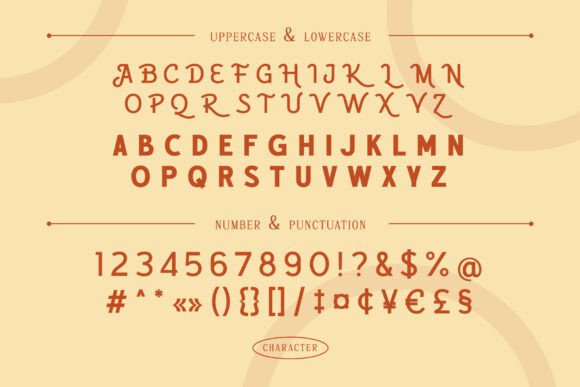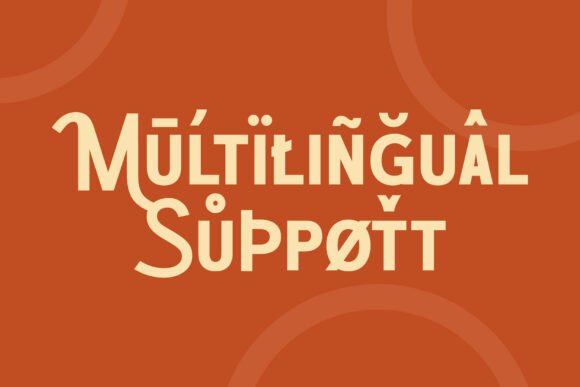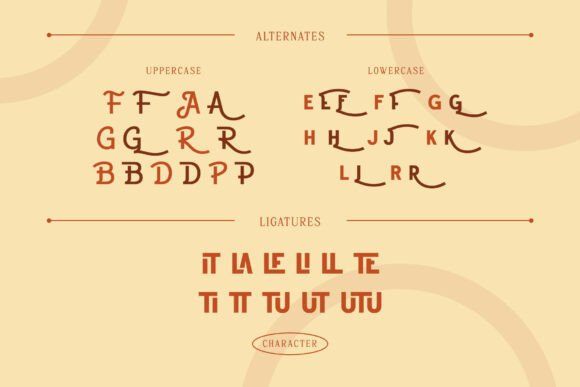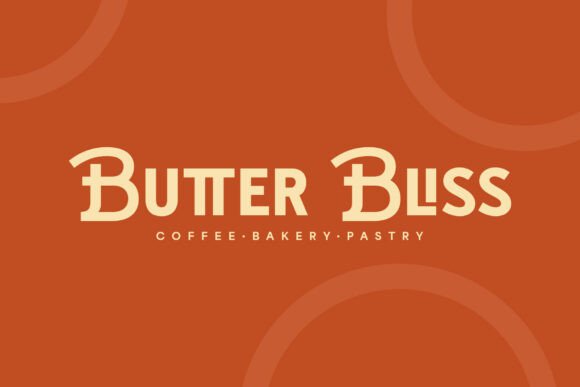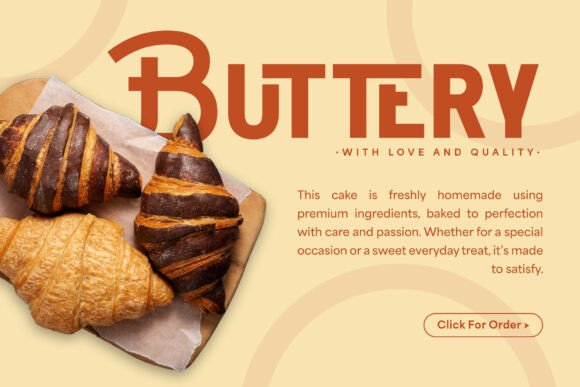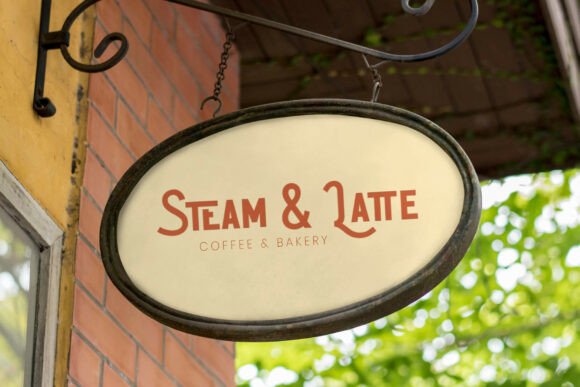
Introduction to Molare Font
Introducing Molare, an elegantly simple yet powerfully modern sans serif display typeface designed to bring refined clarity to your designs.
With its clean lines and inviting curves, Molare is perfect for branding, editorial design, minimalist logos, web design, and graphics This versatile font offers exceptional readability and a contemporary aesthetic, making it ideal for projects that demand a fresh, sophisticated, and approachable look.
Key Features of Molare Font
Why Choose Molare Font?